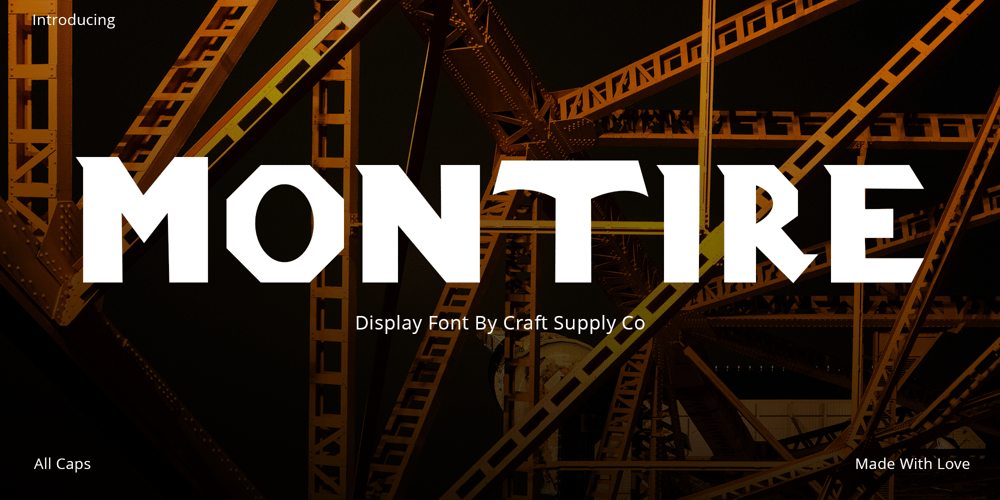
Montire
Montire font
Montire Font Family was designed by Trio Nazzar Saputra, Wahyu Hadi Yuana and published by Craft Supply Co. Montire contains 2 styles and family package options. Introducing Montire – Strong Serif FontRobust MasculinityLet’s delve into the world of Montire, a font that embodies robust masculinity. With its bold and powerful appearance, it unquestionably demands attention and respect.Industrial EdgeMontire carries an industrial edge that imparts a rugged, mechanical quality to your designs. It’s the ideal choice for projects seeking an edgy and forceful statement.Powerful TypographyMontire’s typography wields an inherent strength that elevates your message to a bolder and more impactful level, making it suitable for a wide range of design projects.Uncompromising StrengthWhen it comes to strength, Montire doesn’t compromise. Its bold serifs and sturdy lines exude unwavering power, ensuring that your content leaves an indelible mark.In ConclusionIn summary, Montire – Strong Serif Font is your solution for designs that demand robust, masculine, and industrial aesthetics. It’s the font that elevates your message, making it strong, impactful, and impossible to overlook. Whether it’s for branding, posters, or any design endeavor, Montire guarantees that your content carries the unmistakable stamp of strength and unwavering confidence.